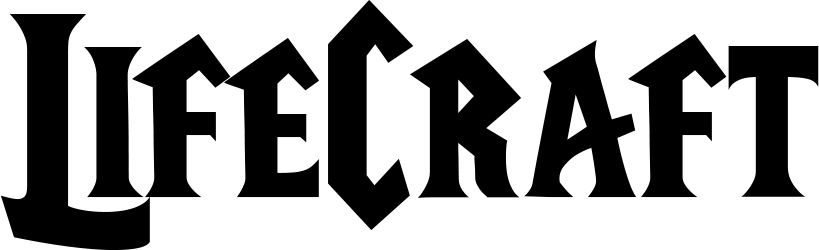
LifeCraft Font
Designed byEliot Truelove
LifeCraft is a gothic font that has been designed in a modern style with a few tweaks but does not support lowercase letters. This font is similar to medieval letters, so it can convey a sense of nostalgia and vintage, and it is suitable for designing the user interface of video games and illustrating historical books.